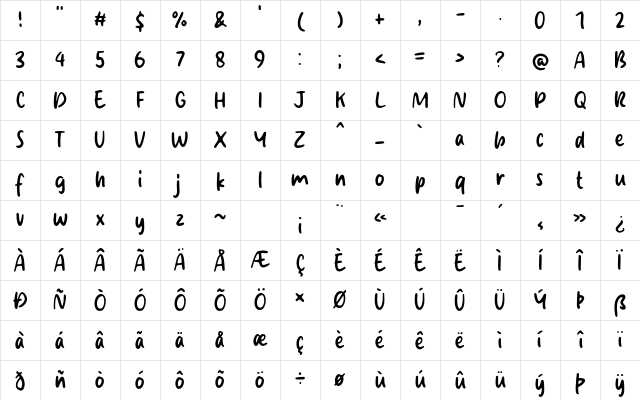
Shine Flower Regular Free Font
Shine Flower Regular
Design Context for Shine Flower
Shine Flower is a composed and adaptable typeface that performs quietly and consistently across a wide range of design contexts.
Pro Tip: Use Shine Flower in both headline and body roles to test its range before committing to a single application.